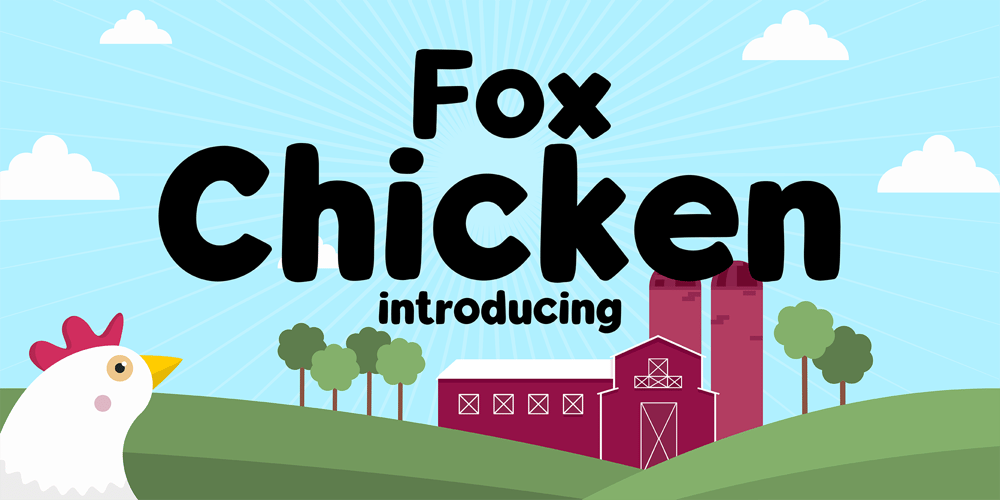
Fox Chicken Font Family was designed by Rattana Rattanawan and published by Fox7. Fox Chicken contains 1 styles and family package options. Fox Chicken Font is a lively and playful display font that is perfect for adding a touch of fun and cheer to any design project. Designed with a focus on creativity and originality, this font features bold and expressive characters that are guaranteed to make your designs stand out.